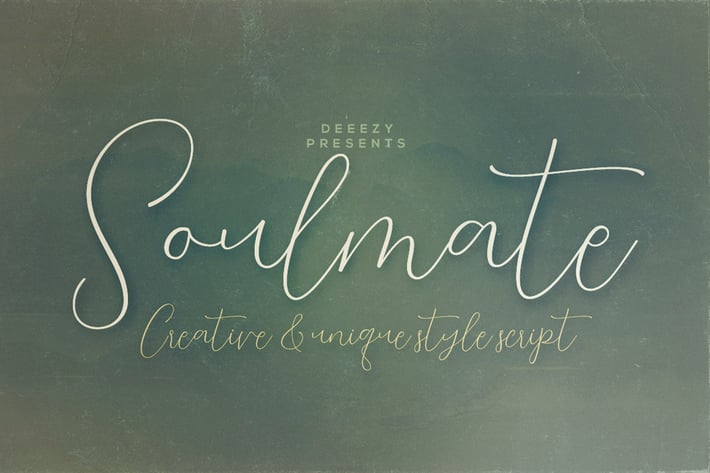
Soulmate Script Font
Thin line and handwritten or creative style script font for your new projects. With multi language support and lot of stylistic alternates. Enjoy ;)